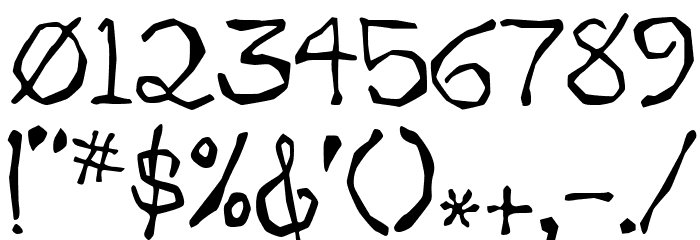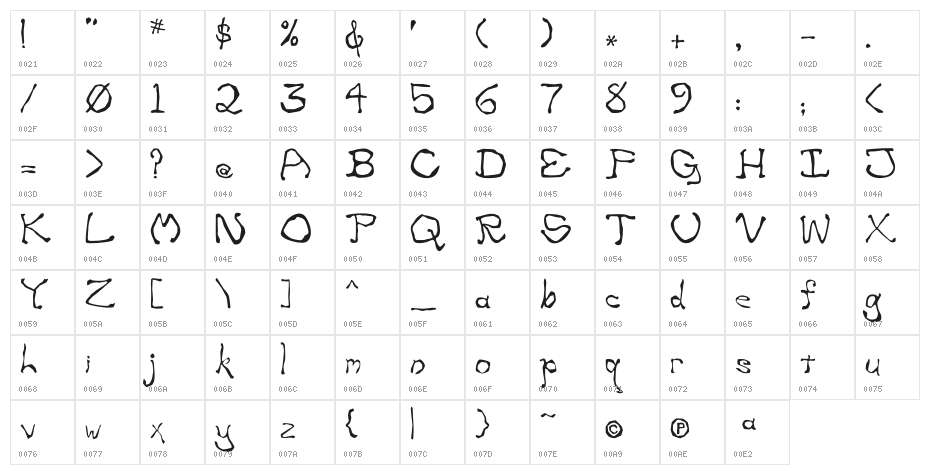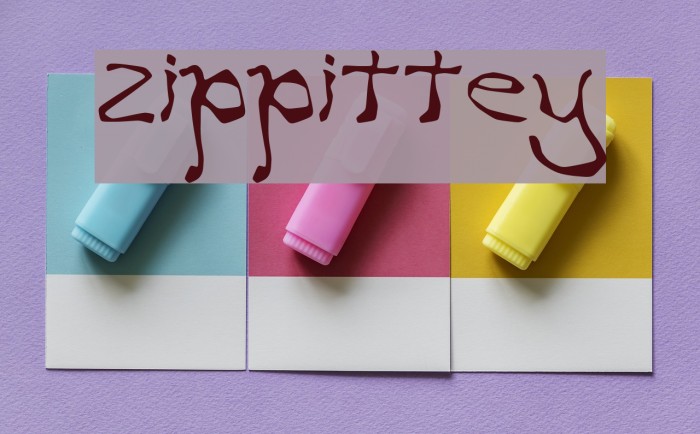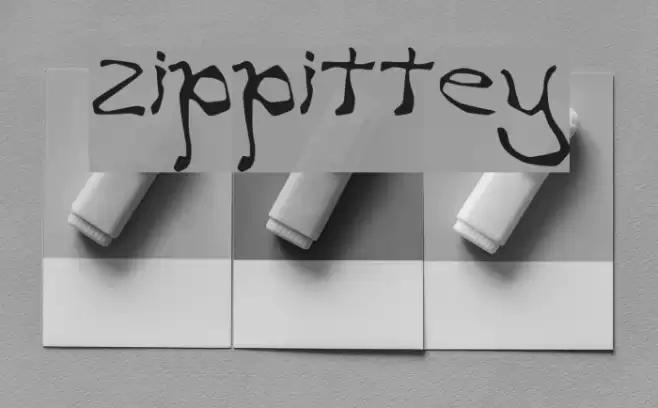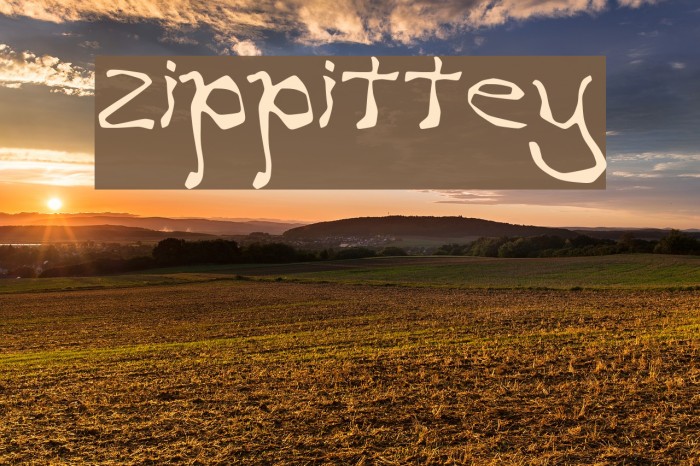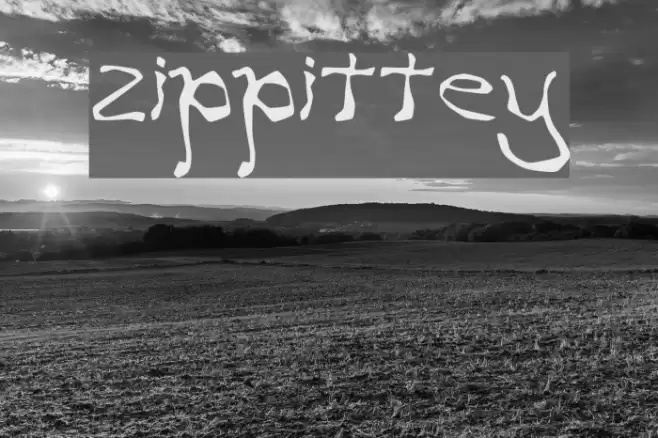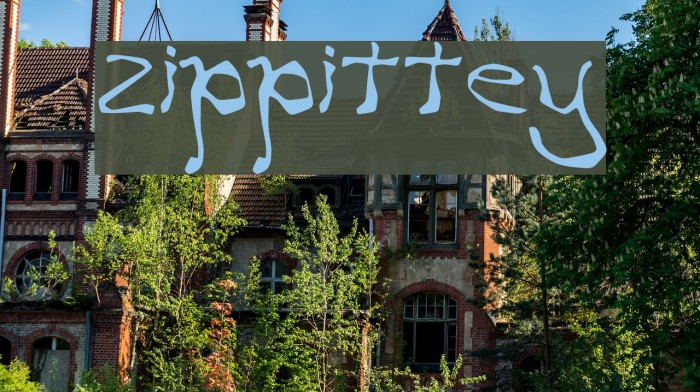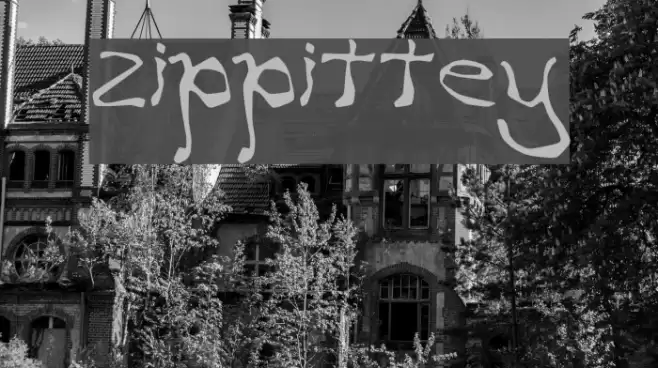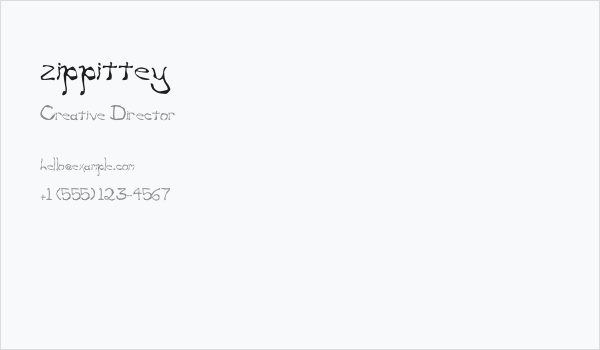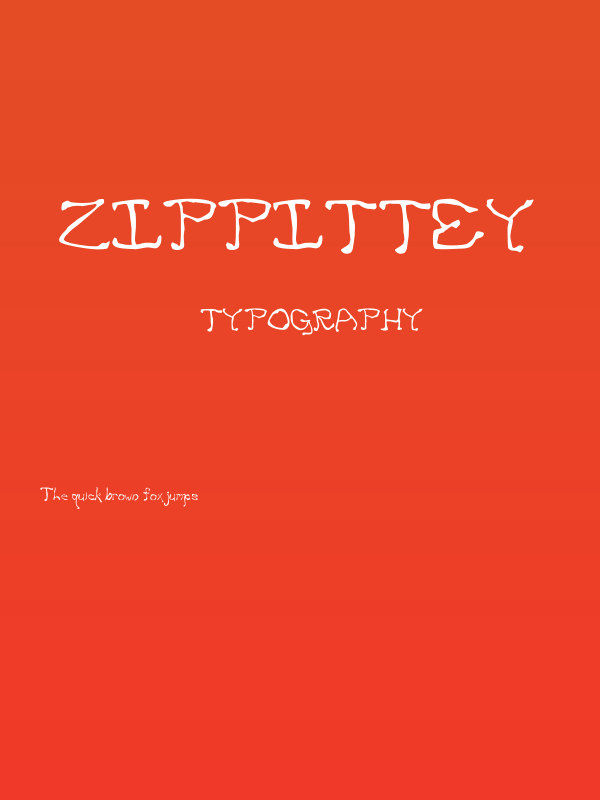
zippittey Font
zippittey Description
This font features a unique, hand-drawn style with irregular, organic shapes that give it a whimsical and playful appearance. The characters have a slightly uneven baseline, adding to the casual and informal feel. The strokes vary in thickness, creating a dynamic and lively texture. The uppercase and lowercase letters maintain a consistent style, while the numerals and special characters integrate seamlessly with the overall design. This font's distinctive personality makes it stand out, ideal for creative and artistic projects.
| Proposed Projects | Ideal for children's books, creative posters, artistic branding, and playful invitations. |